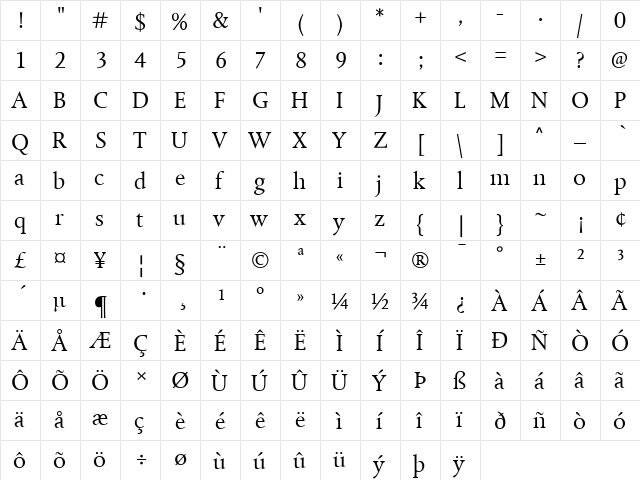
DTLAlbertinaT Regular
Design Context for DTLAlbertinaT Typeface
DTLAlbertinaT offers clean, dependable letterforms without strong stylistic allegiance, making it a practical choice for designers who need flexibility.
Pro Tip: Use DTLAlbertinaT in both headline and body roles to test its range before committing to a single application.